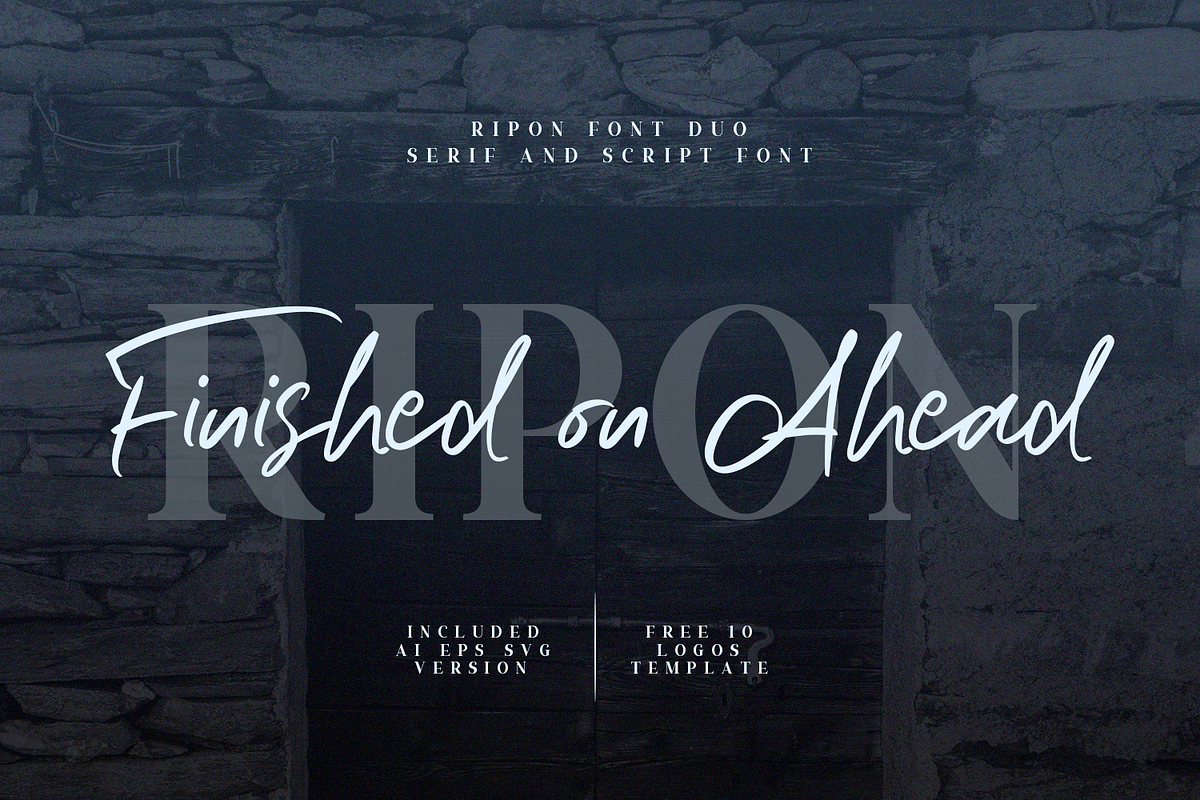
Two beautifully paired fonts — one classic serif, one flowing script — designed to work in perfect harmony.
Ripon Font Duo brings together the timeless elegance of a serif typeface with the natural charm of a handwritten script. Classic and refined on their own, they become something truly special when used together — making this duo ideal for wedding invitations, logo design, book covers, stationery, marketing materials, magazines, inspirational quotes, and much more.
- Uppercase & lowercase letters with alternates (Ripon Script)
- Unique ligatures